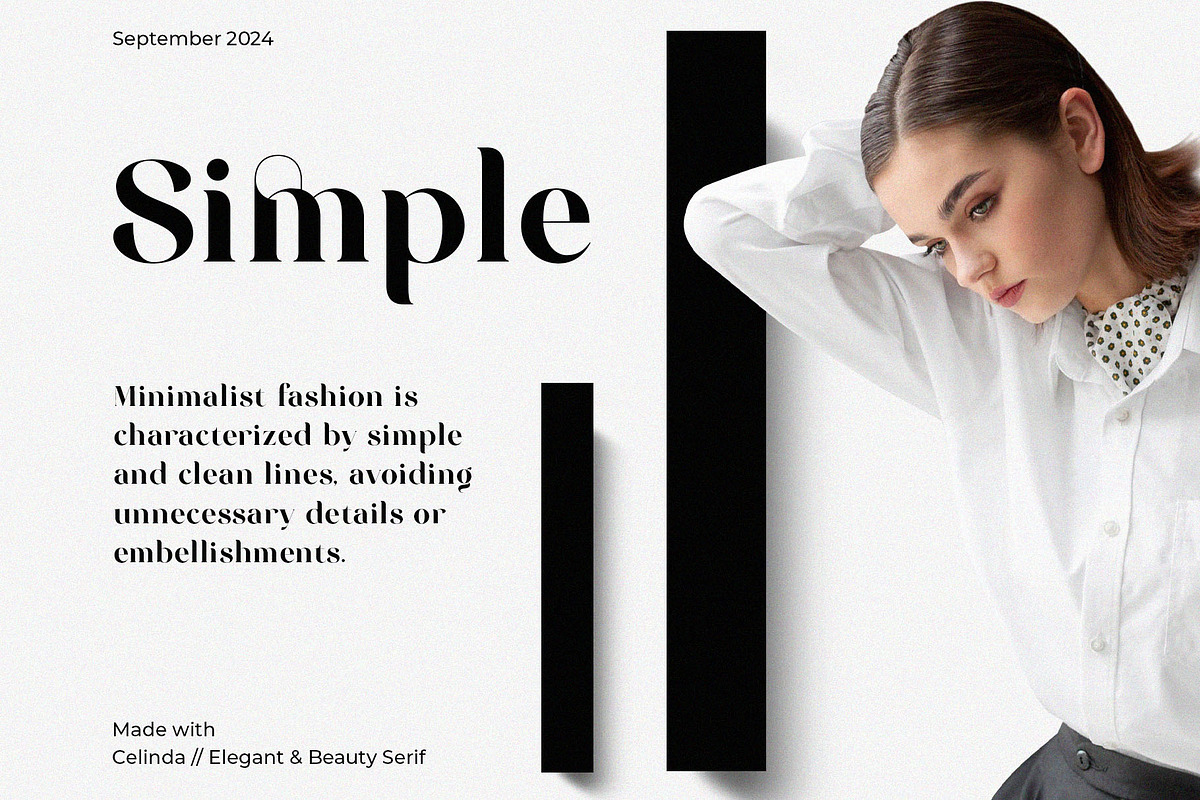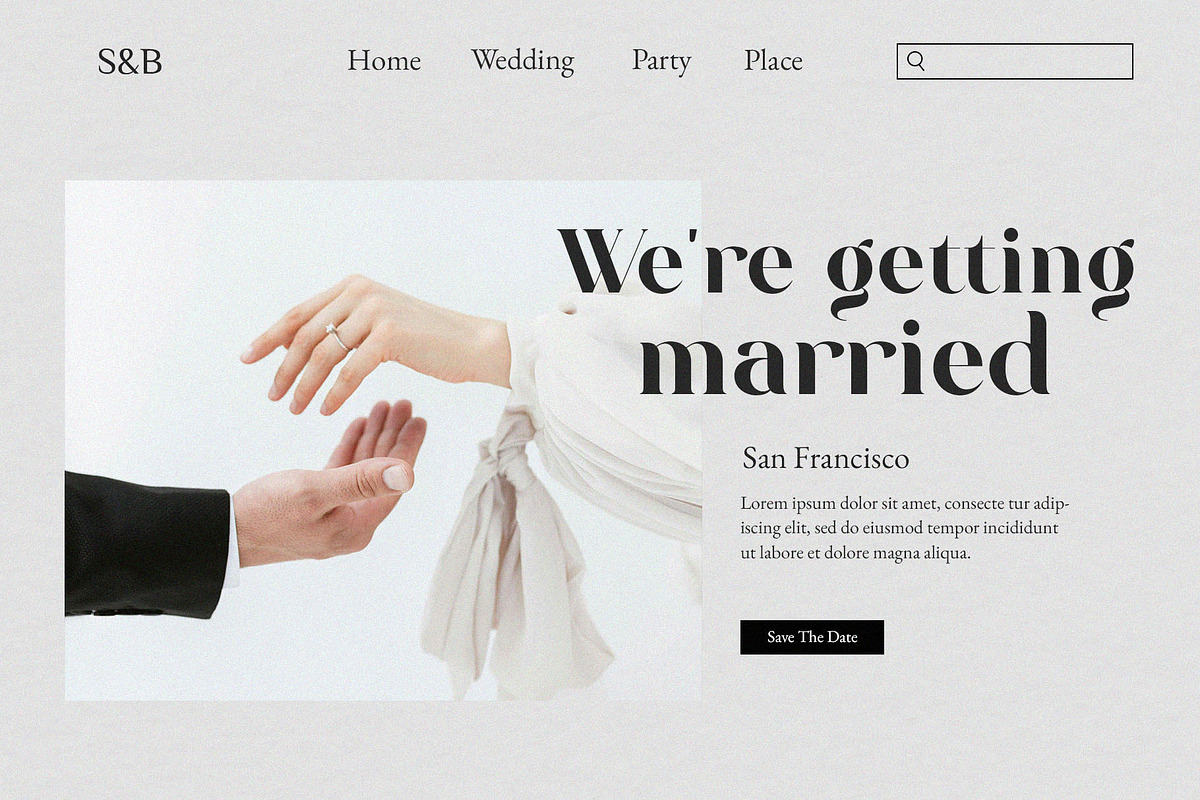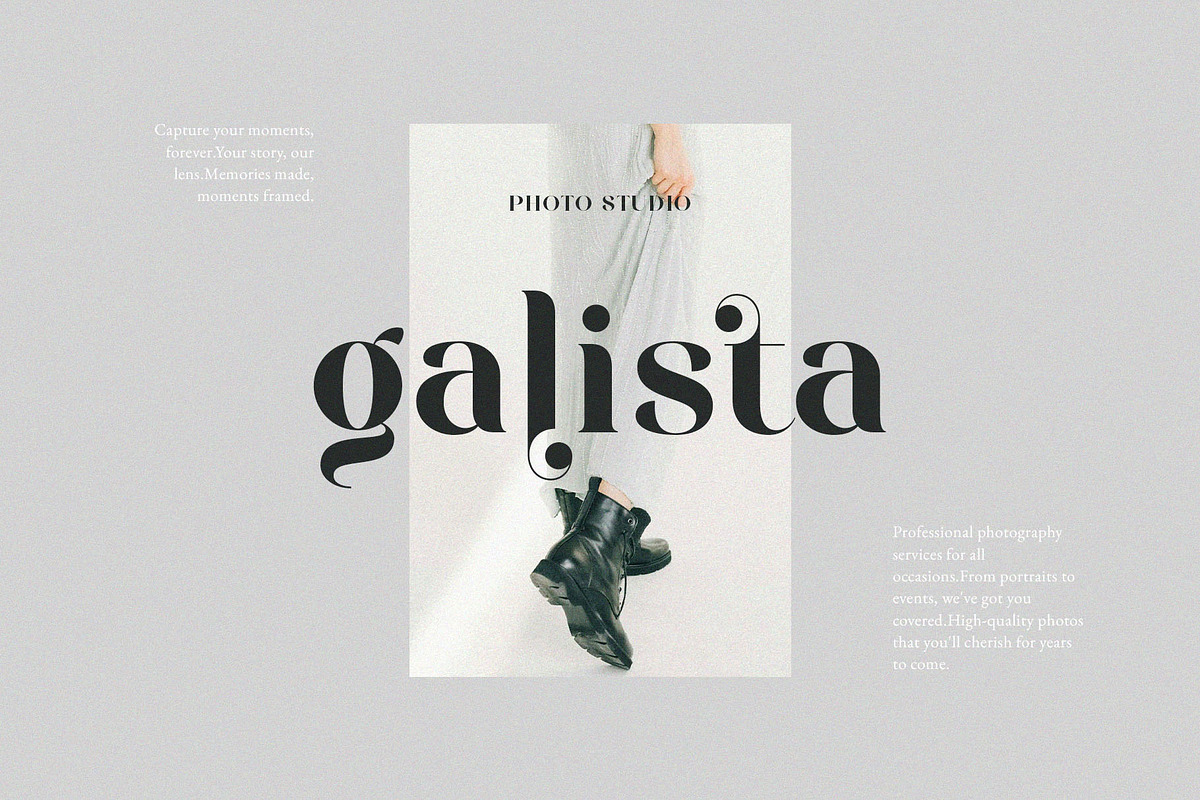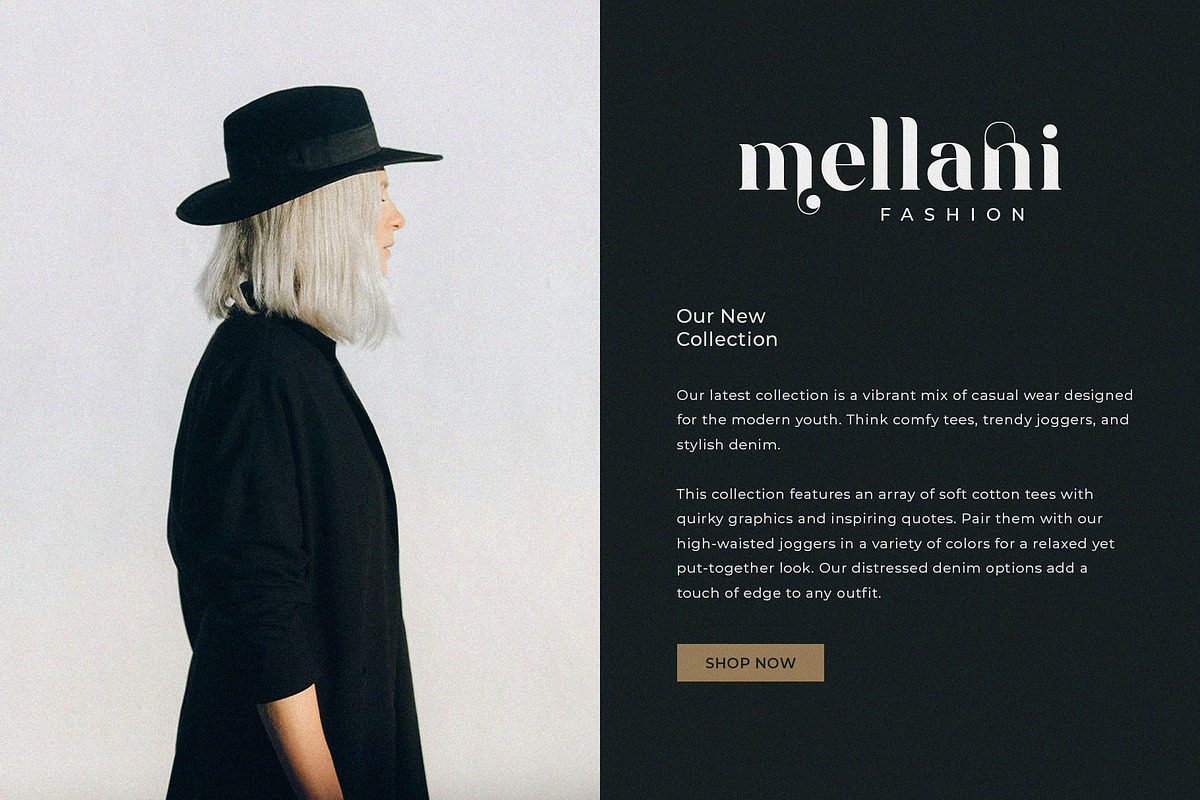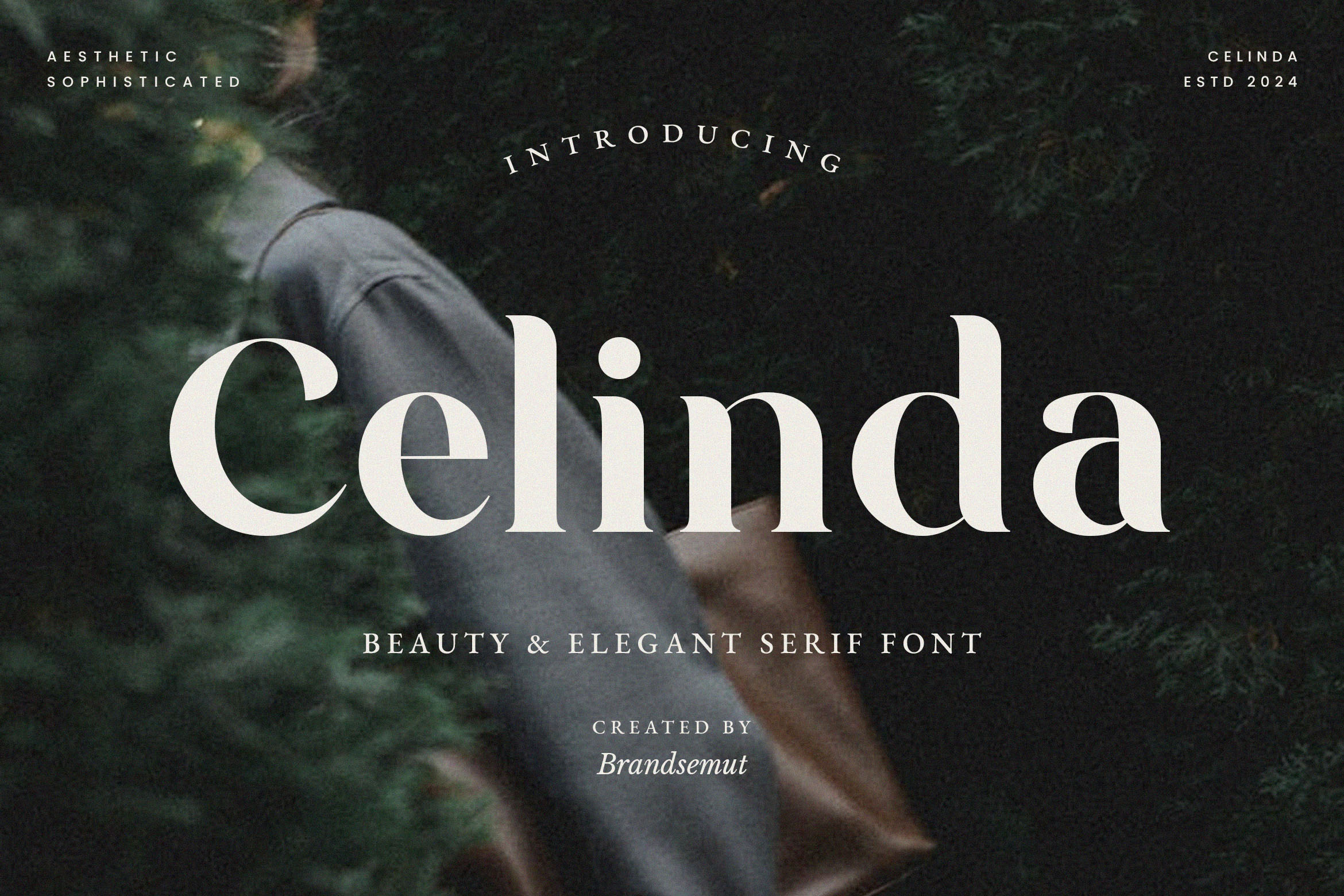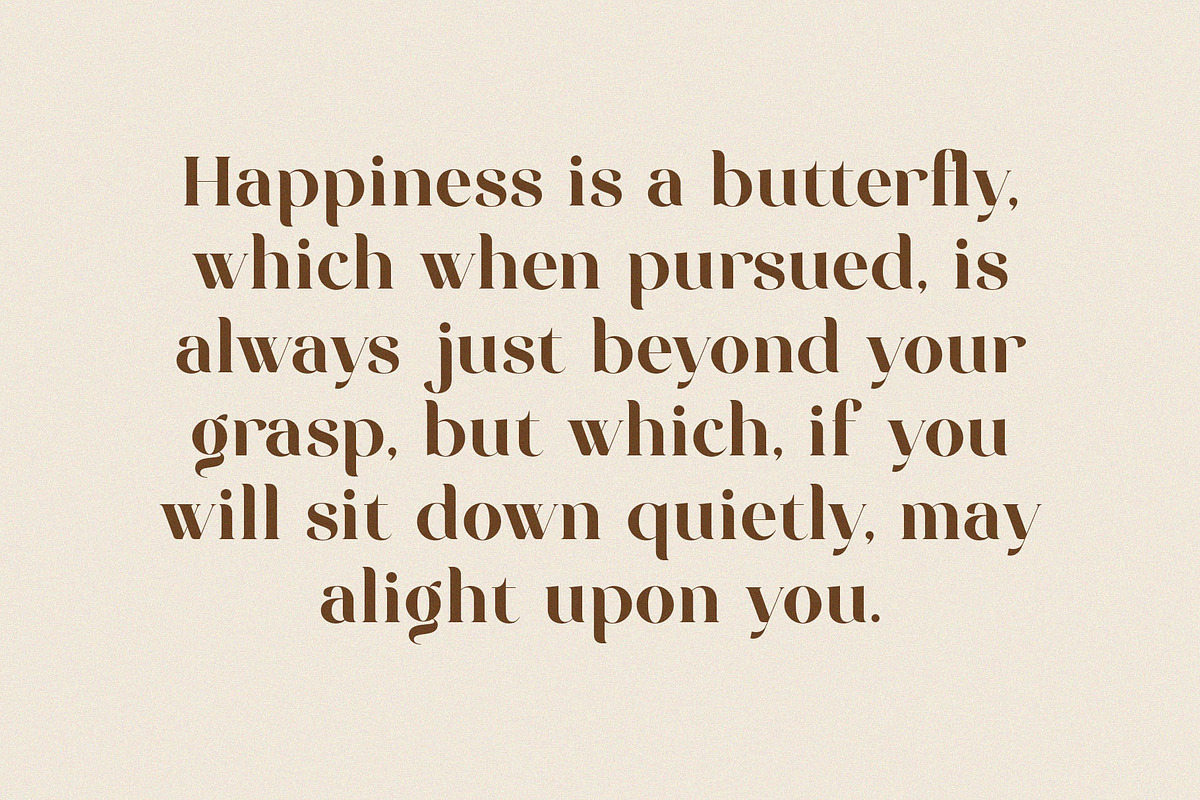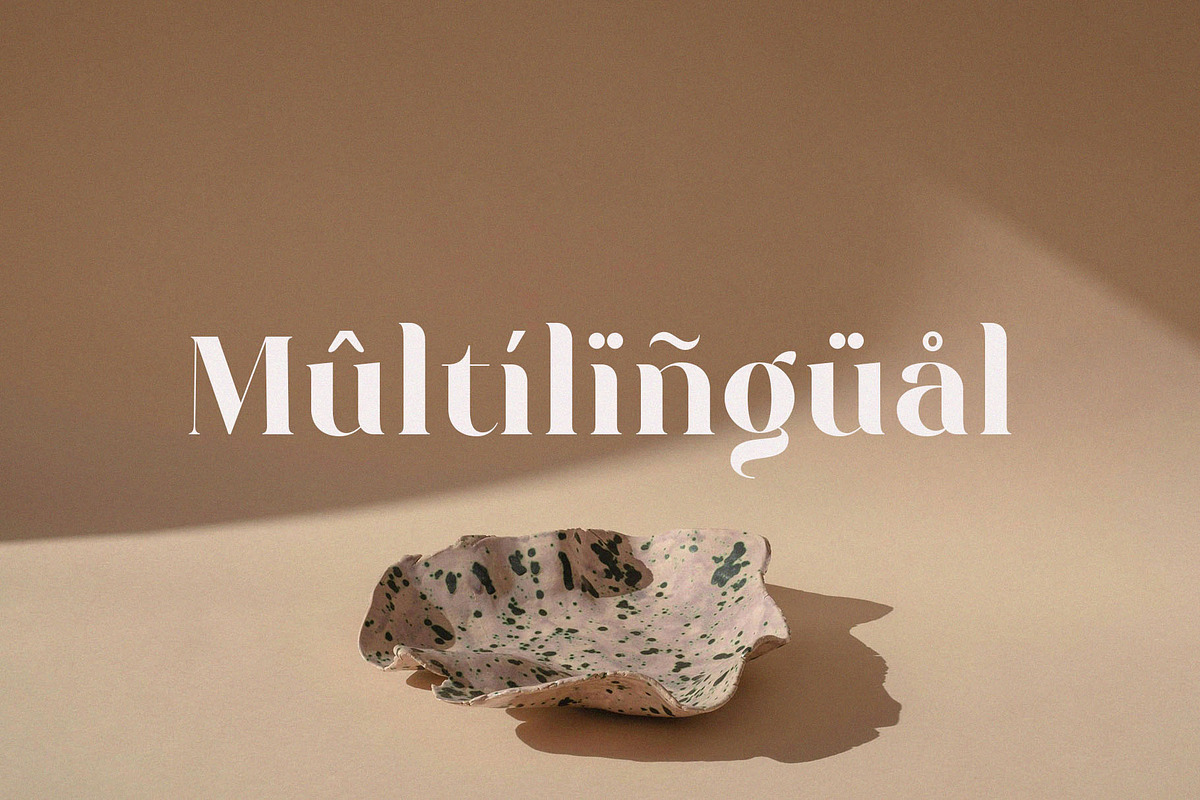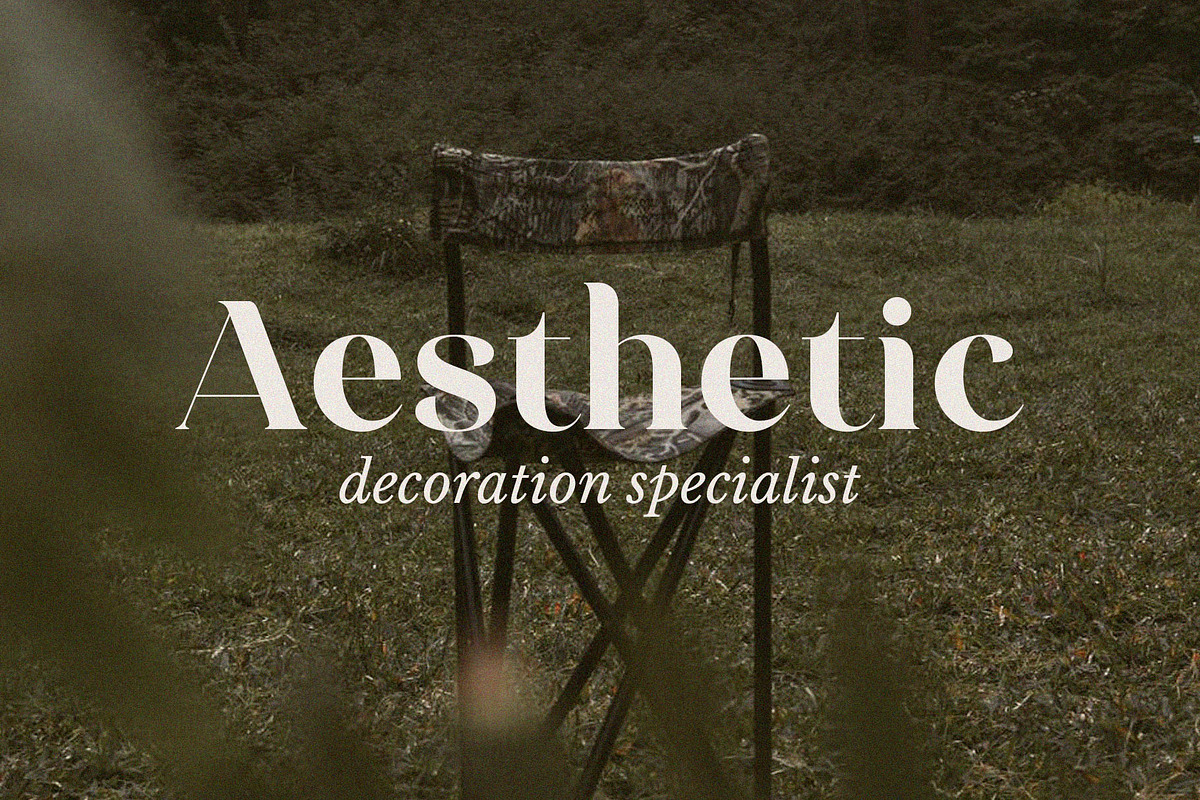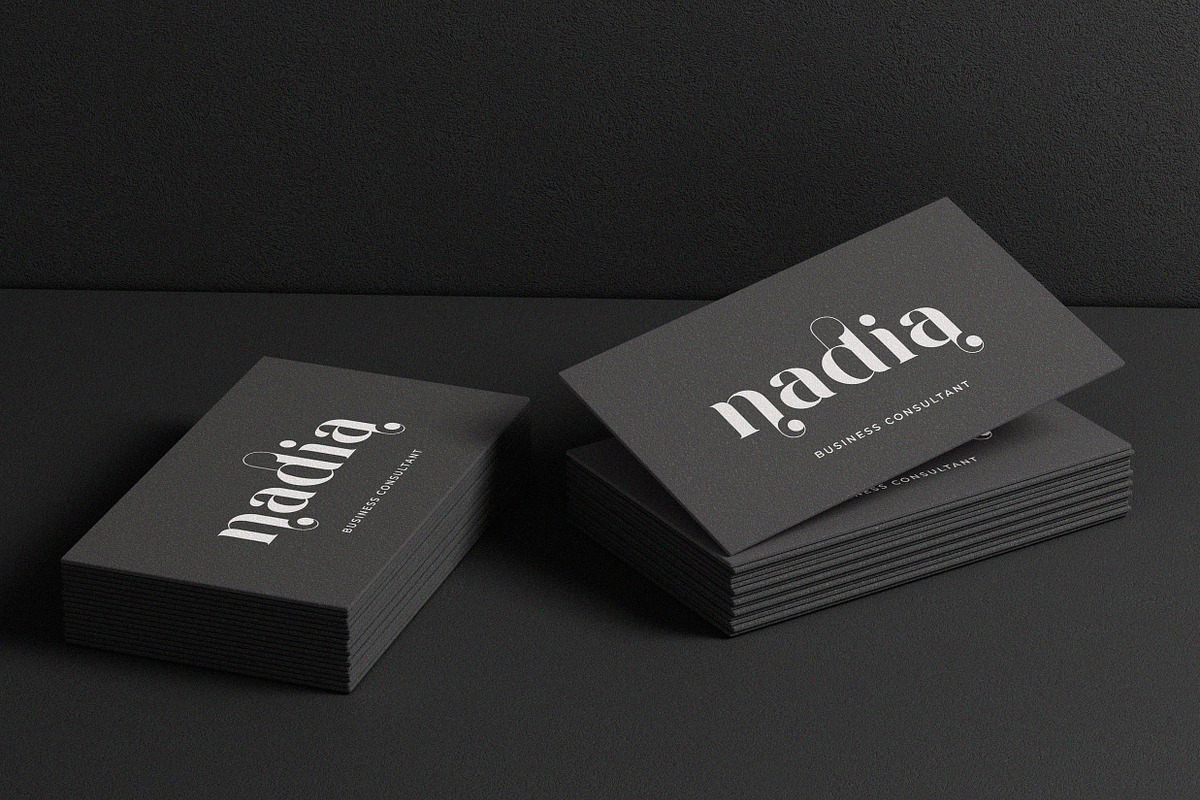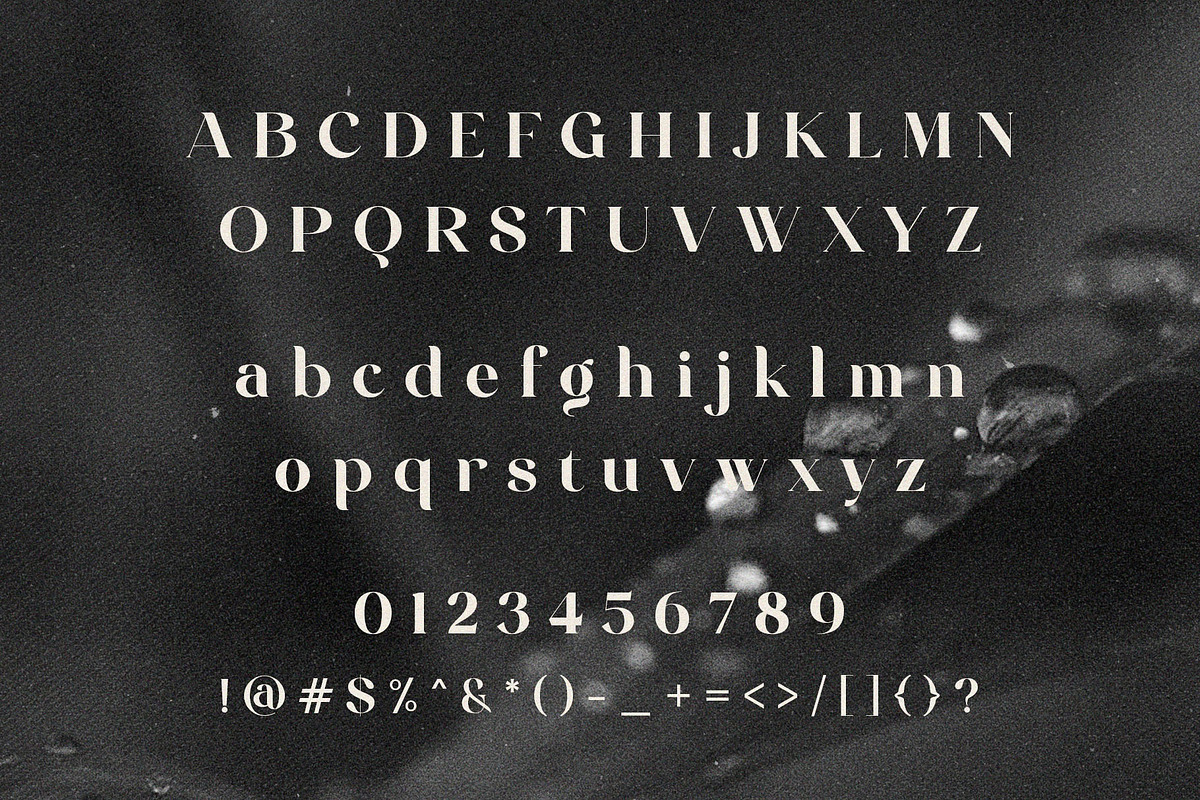
Celinda Regular Font
Celinda — Elegant & Modern Display Typeface
Celinda is a stylish and expressive display typeface designed to bring elegance, personality, and a contemporary feel to your creative projects.
With its distinctive letterforms and refined character, Celinda is perfect for designers looking to create memorable visuals that feel both modern and sophisticated. Whether you're working on branding, editorial designs, social media graphics, packaging, or invitations, Celinda adds a unique visual personality to every composition.
Logo & Brand Identity
Fashion & Beauty Branding
Wedding Invitations & Stationery
Editorial & Magazine Designs
Posters & Flyers
Headlines & Display Typography
Product Labels
Personal Branding
Quotes & Wall Art
Creative Advertising
Elegant and distinctive letterforms
Modern display style
Versatile for both print and digital projects
Suitable for headlines, logos, and short text
Designed to create a premium visual impression
Easy to use across creative applications
Why Celinda?
Celinda was created for designers who want typography to become part of the visual identity rather than simply support it. Its unique character makes it especially effective for projects that need an elegant, creative, and memorable typographic presence.
Make your words stand out with Celinda.
Bring personality, elegance, and style to your next creative project with Celinda.